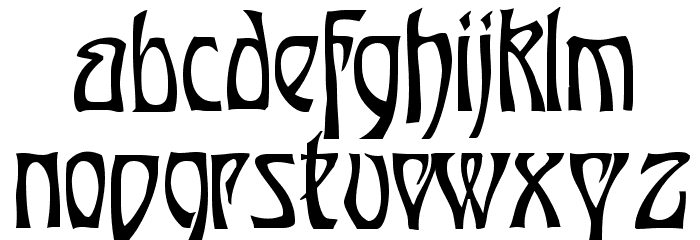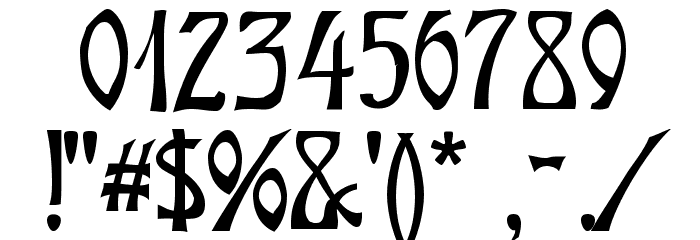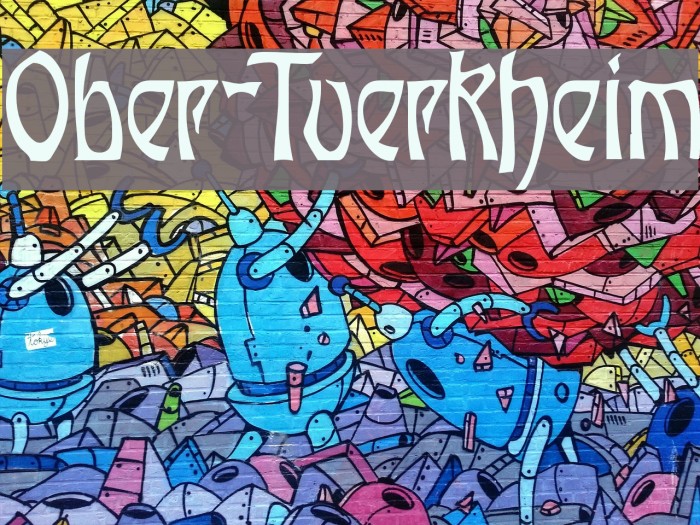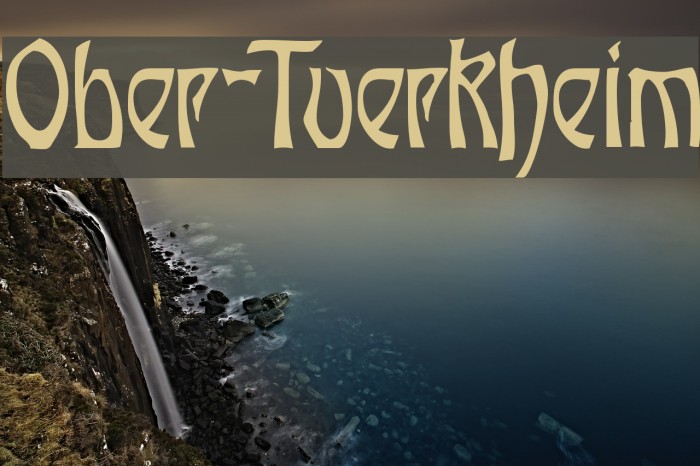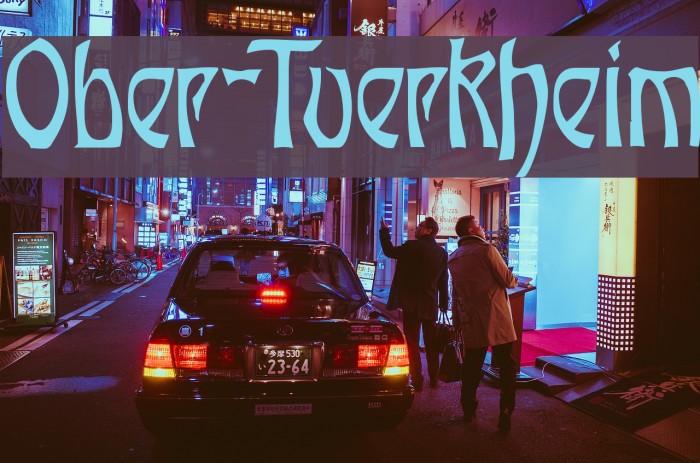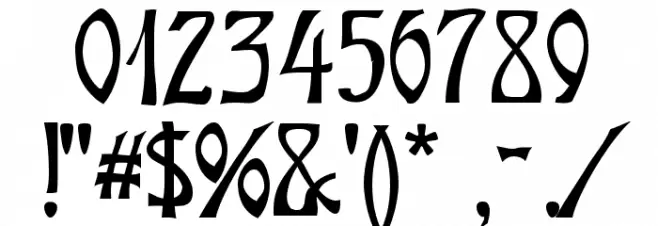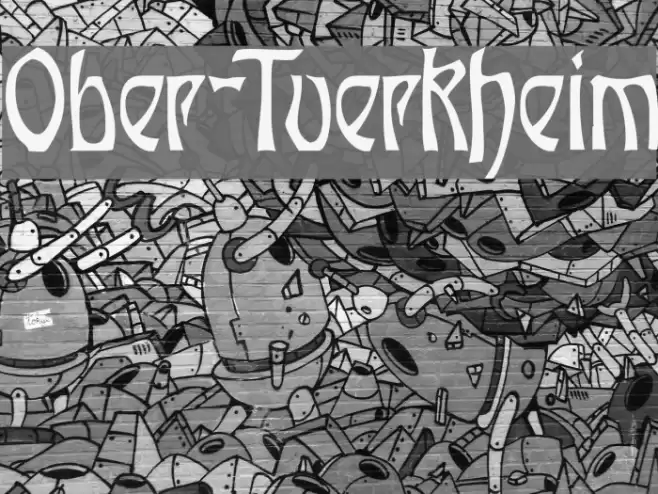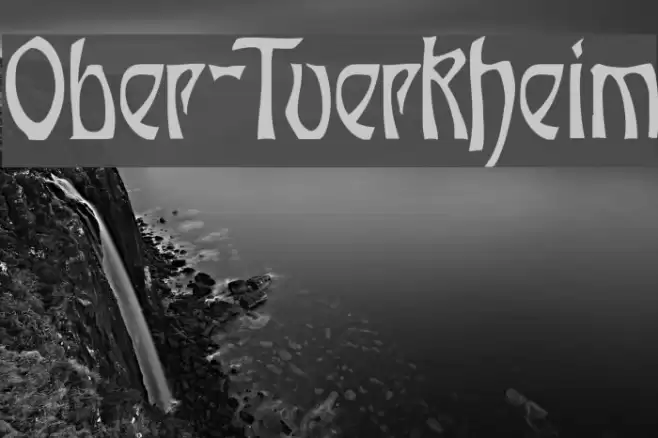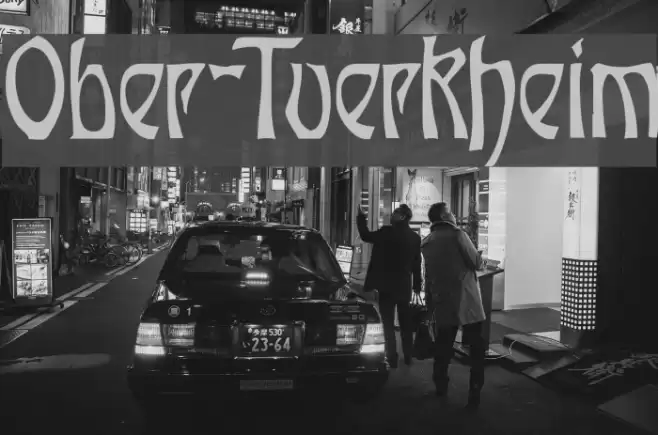
Ober-Tuerkheim Font
This font features a unique and artistic style with a hand-drawn appearance. The characters have an uneven, organic flow, giving them a whimsical and playful feel. The uppercase letters are bold and slightly elongated, while the lowercase letters maintain a consistent style with a touch of irregularity. The numbers and special characters follow the same artistic theme, making the font suitable for creative and informal projects. The overall design is reminiscent of a handcrafted script, with a touch of medieval influence, adding to its charm and versatility.
A whimsical, hand-drawn font with a playful and artistic style.
- Proposed Projects: Ideal for children's books, creative posters, artistic branding, and playful invitations.